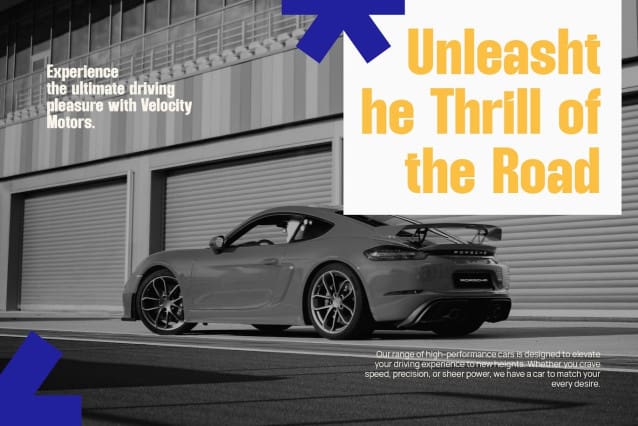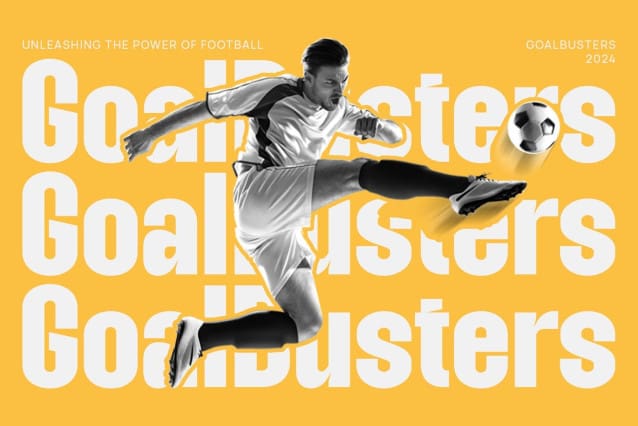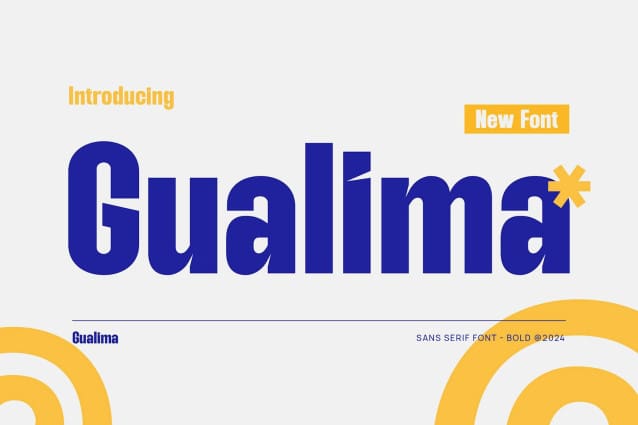
Gualima Font
Gualima Font a modern sans serif font with an elegant style, perfect for brands, logos, invitations, magazines, product packaging and more.